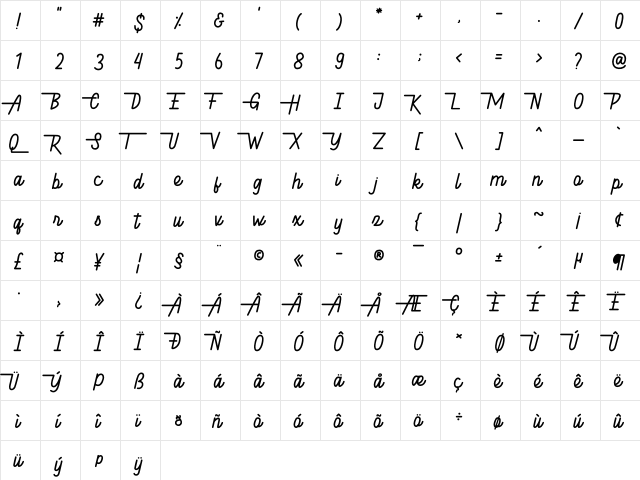
Hellytail Regular
| Designer | Farul Arjianto |
Design Context for Hellytail Typeface
Hellytail is a composed and adaptable typeface that performs quietly and consistently across a wide range of design contexts.